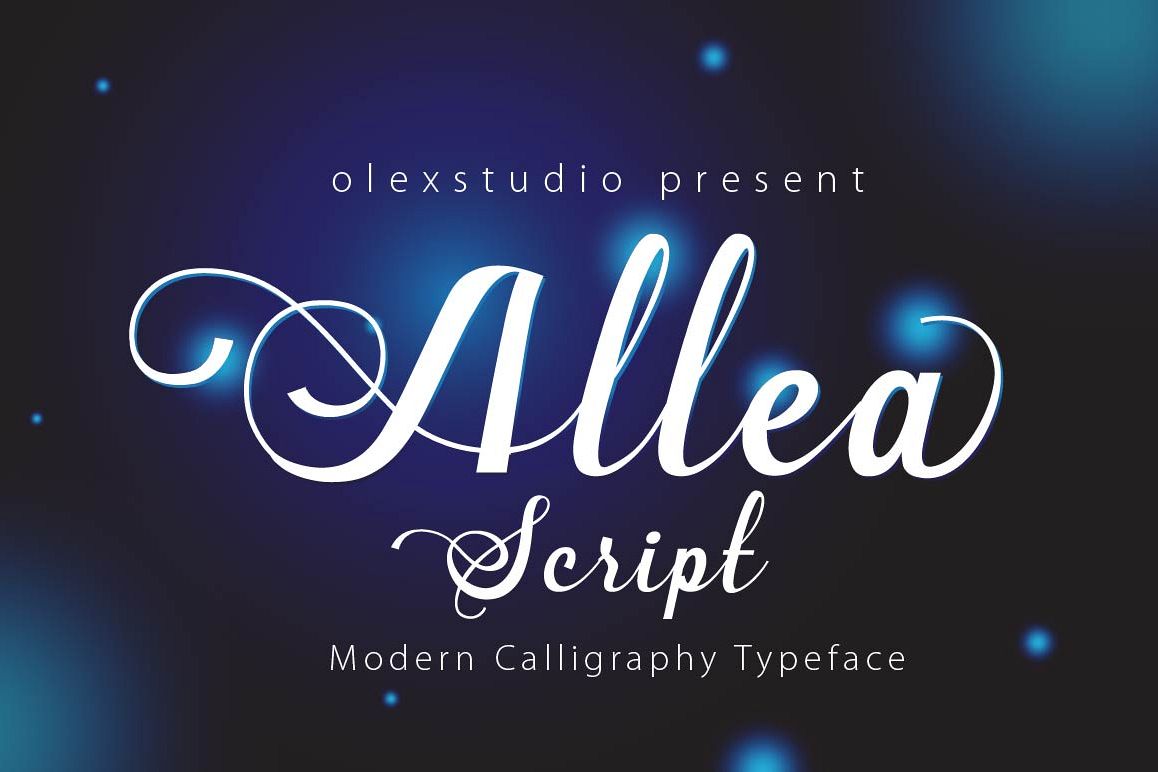
New Allea Script
New Allea Script.
allea script is another lovely modern calligraphy typefaces, classic and elegant touch. Can be used for various purposes.such as headings, signature, logos, wedding invitation, t-shirt, letterhead, signage, lable, news, posters, badges etc.
Numerals & Punctuations
Accents (Multilingual characters)
Alternates
Ligature